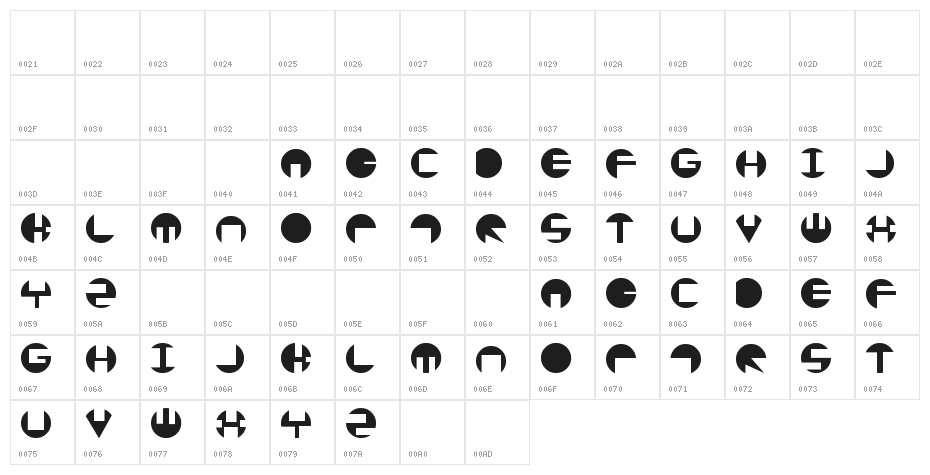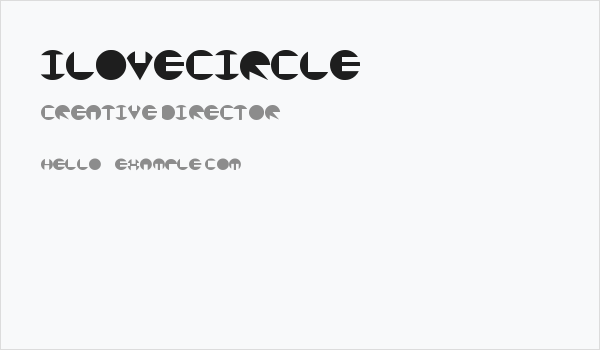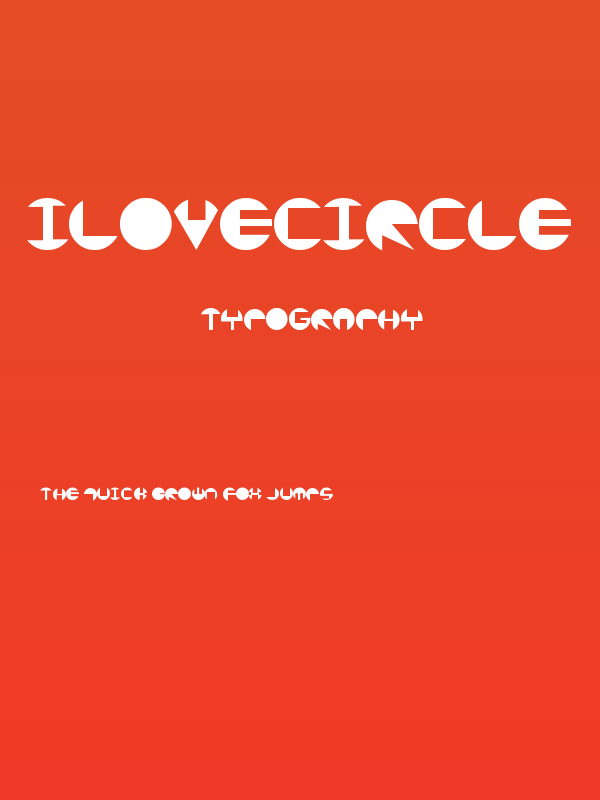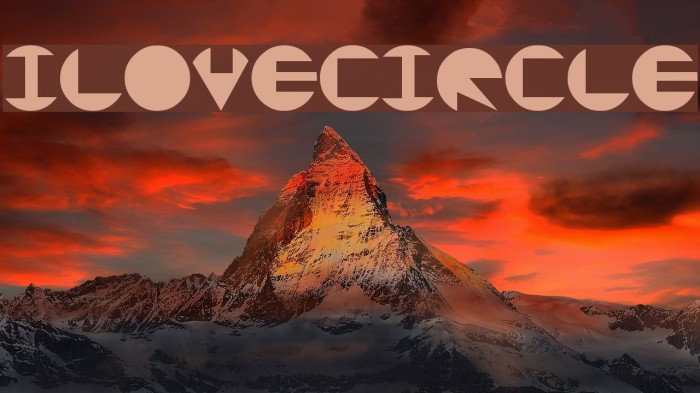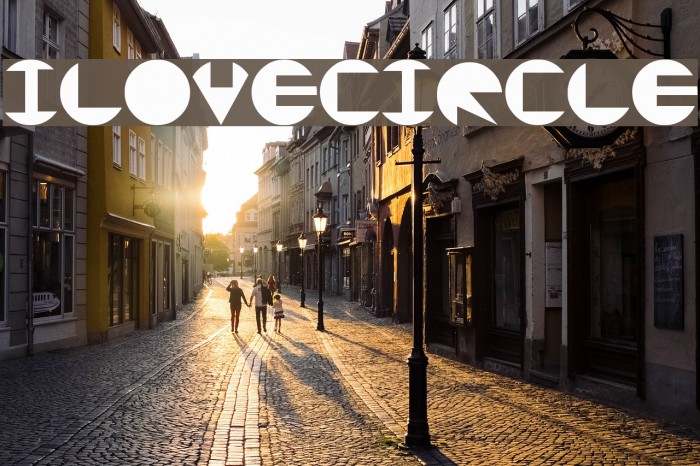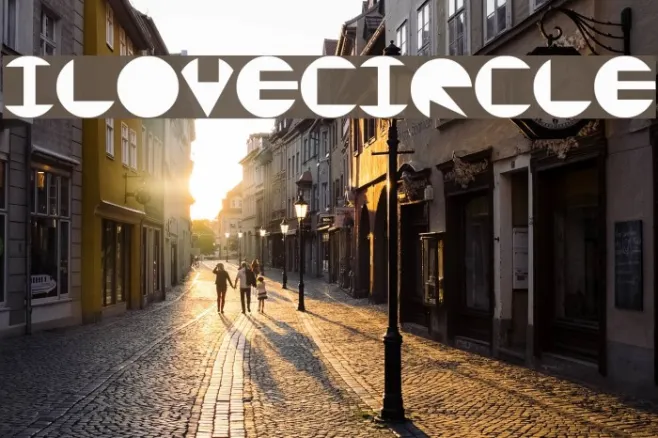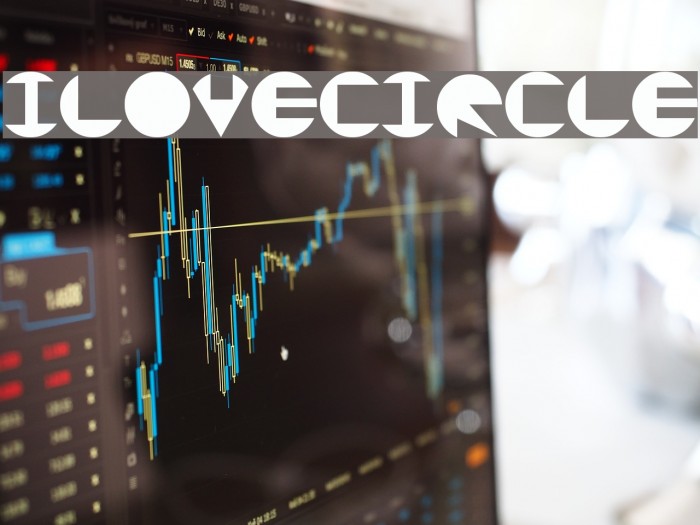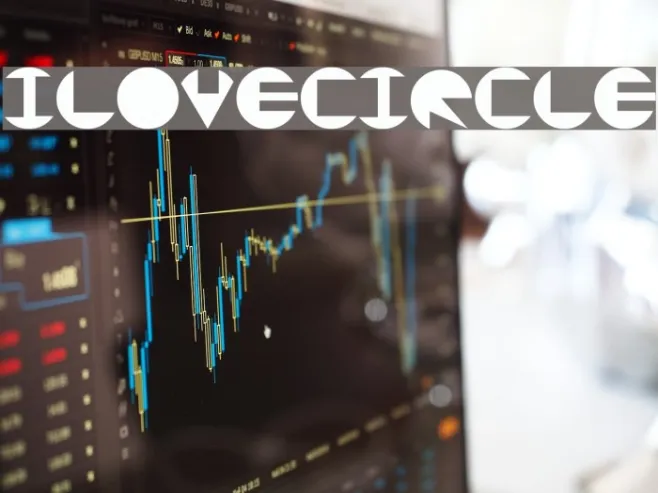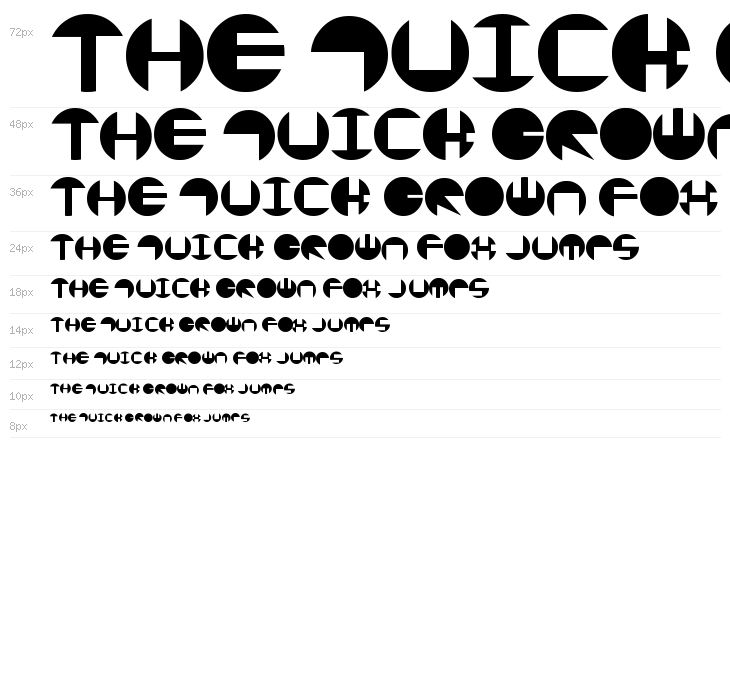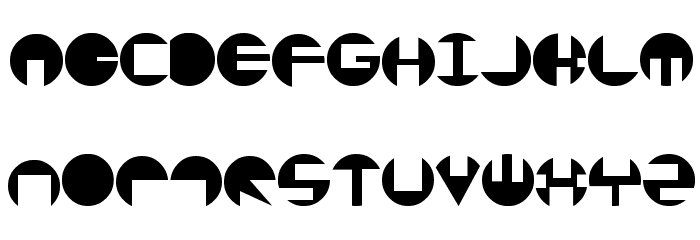
iLoveCircle Font
iLoveCircle Description
This font features a unique and modern design with a circular motif dominating each character. The letters are constructed with bold, geometric shapes that create a futuristic and artistic appearance. The consistent use of circular forms gives the typeface a cohesive and harmonious look. The characters are evenly spaced, providing a balanced and clean aesthetic. This font is highly stylized, making it ideal for creative projects that require a distinctive and eye-catching typeface.
| Proposed Projects | Ideal for branding, logos, posters, and modern digital designs where a unique and artistic font is needed. |